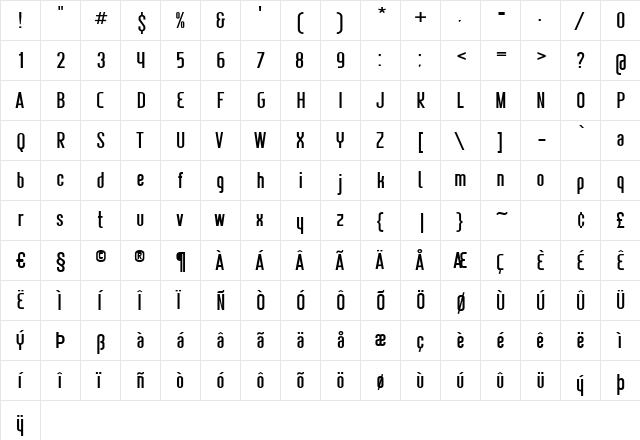
MedRegular Regular
Design Context for MedRegular Typeface
MedRegular is a composed and adaptable typeface that performs quietly and consistently across a wide range of design contexts.